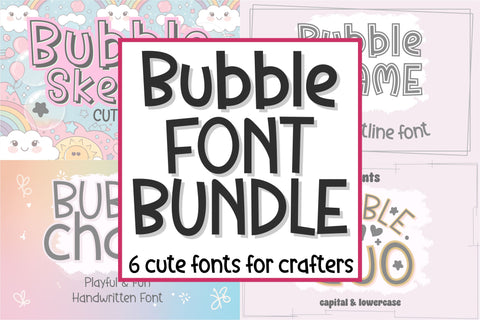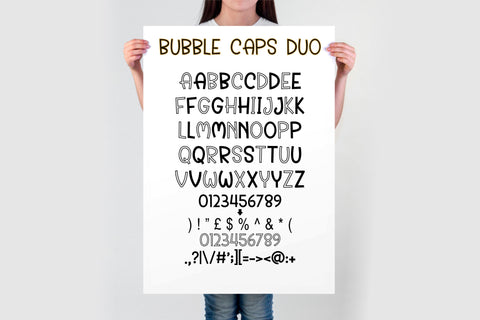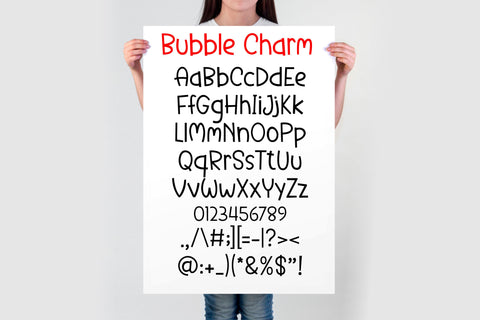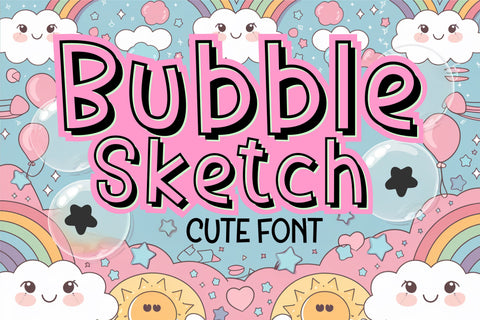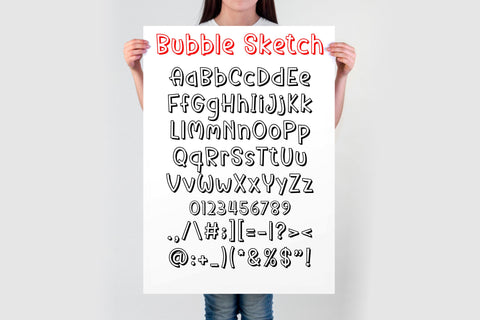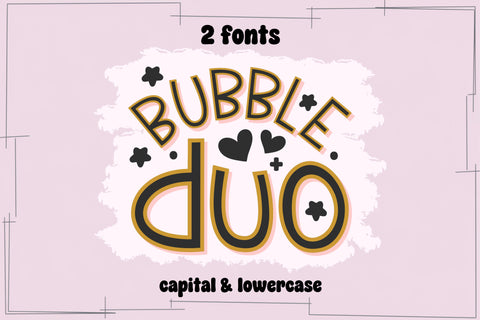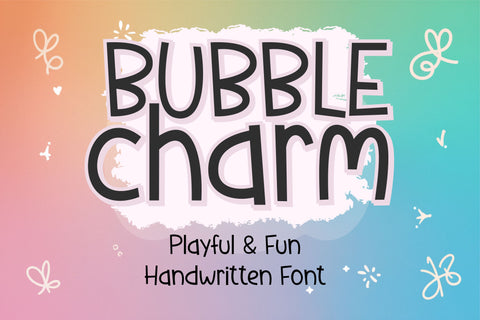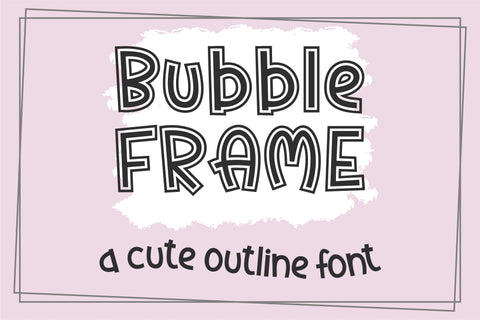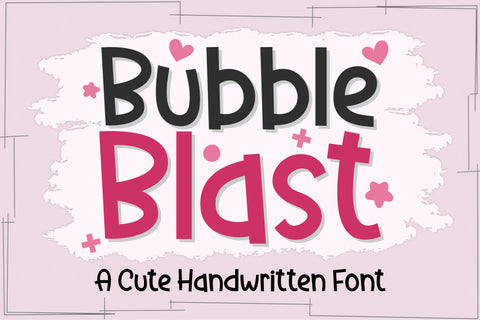
Bubble Font Bundle | Cute Playful Fonts for Crafts | Kawaii Handwritten Font Pack
Bubble Bliss Font Bundle – A Playful & Cute Handwritten Font Collection
The Bubble Bliss Font Bundle is a delightful and playful collection of bubbly, hand-drawn fonts designed to add a touch of fun and whimsy to your creative projects! Whether you’re looking for a cute, charming, or aesthetic style, these fonts are perfect for Cricut, Silhouette, Procreate, Canva, and Photoshop users.
With their rounded, bubbly edges and charming details, these fonts are ideal for everything from stickers and t-shirts to greeting cards, planner pages, and sublimation projects. Whether you want to create a modern, fun design or a soft, playful look, this bundle has everything you need!
✅ 6 playful font styles – Sketch, Blast, Charm, Duo, Frame & Outline
✅ Full alphabet (A-Z), numbers, and punctuation